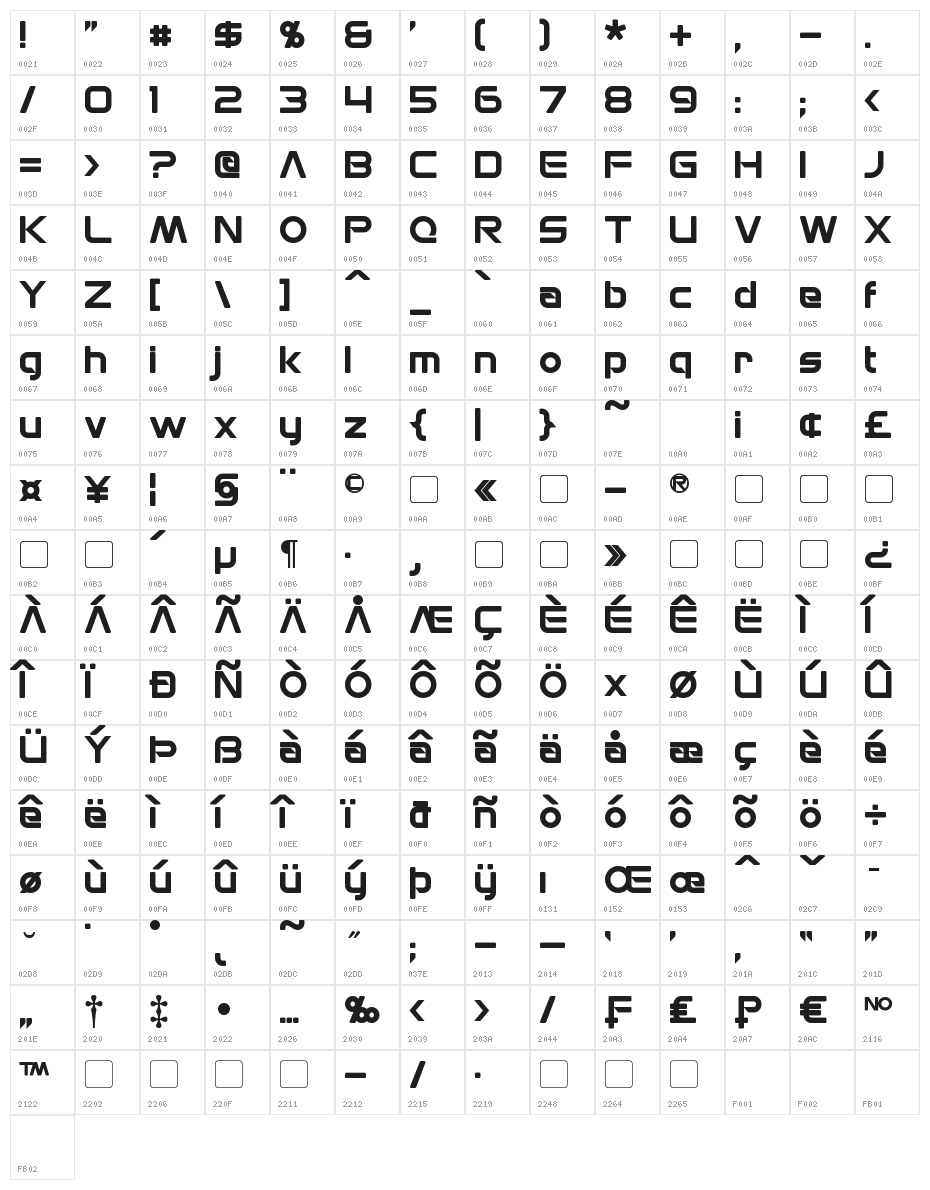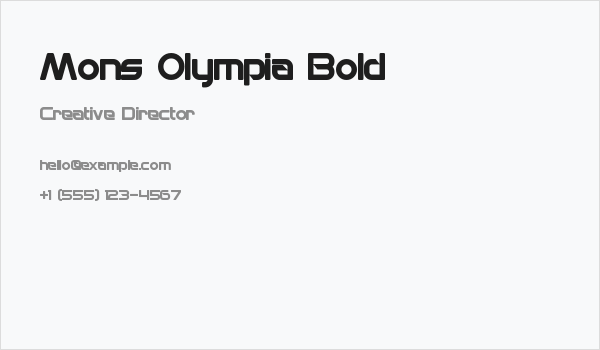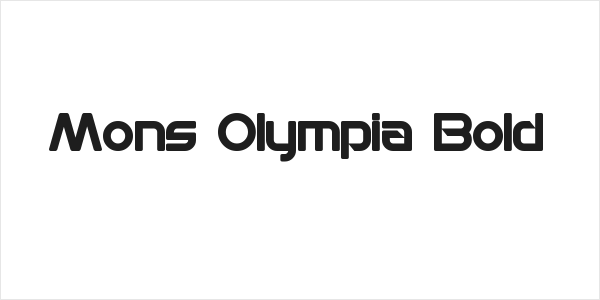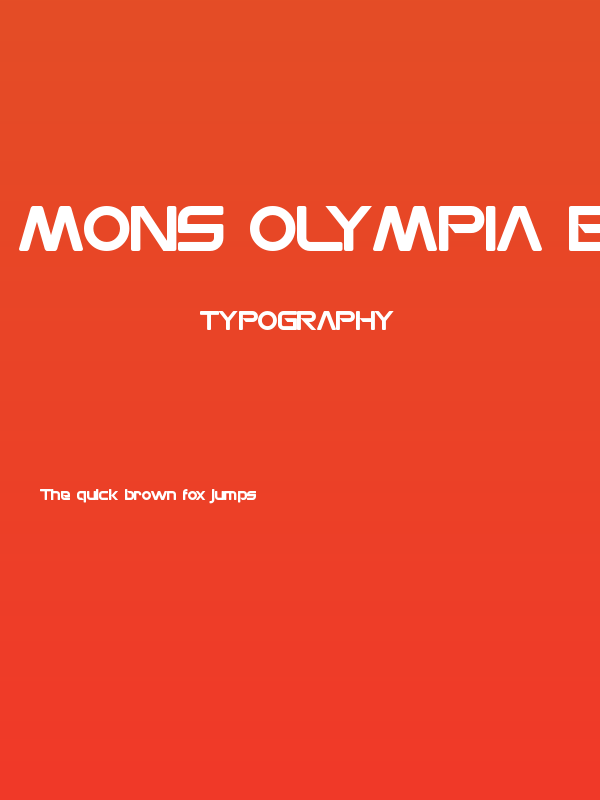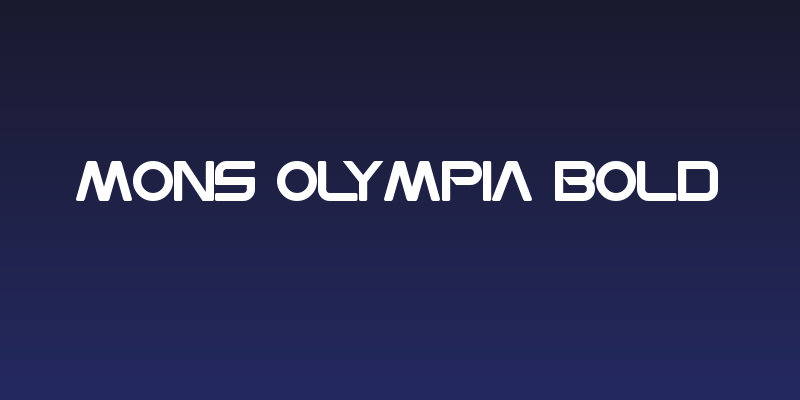
Mons Olympia Bold Font
Mons Olympia Bold Description
This font features a bold and modern design with a geometric and futuristic aesthetic. The characters are constructed with smooth, rounded edges and a consistent stroke width, giving it a sleek and cohesive appearance. The uppercase letters are particularly striking with their angular and dynamic forms, while the lowercase letters maintain a harmonious balance. The numerals and special characters follow the same design principles, ensuring uniformity across all glyphs. This font's boldness and unique style make it ideal for attention-grabbing applications.
| Proposed Projects | Ideal for branding, headlines, posters, and digital media where a modern and bold statement is needed. |